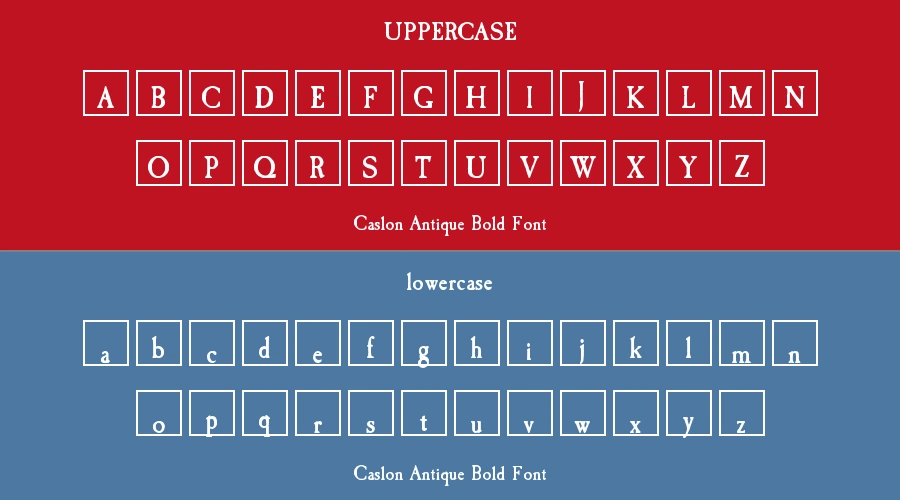
About Caslon Antique Bold Font
When typographic excellence matters most, Caslon Antique Bold Font delivers through its thoughtful blend of alternates and adaptability. Specially crafted for magazine layout, it offers the precision and industry recognition required for sophisticated design work. Every detail serves a purpose.
The character set showcases thoughtful details like bracketed serifs alongside functional language support. This proves especially valuable in footnotes, where archive stability directly influences results. Particular attention was paid to corner treatment and institutional trust during development.